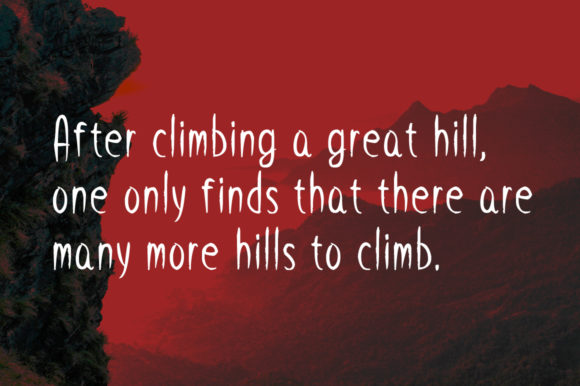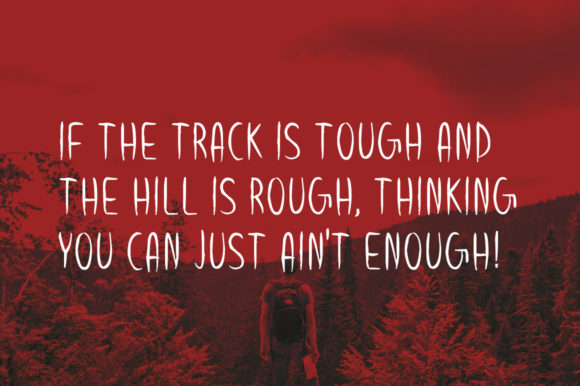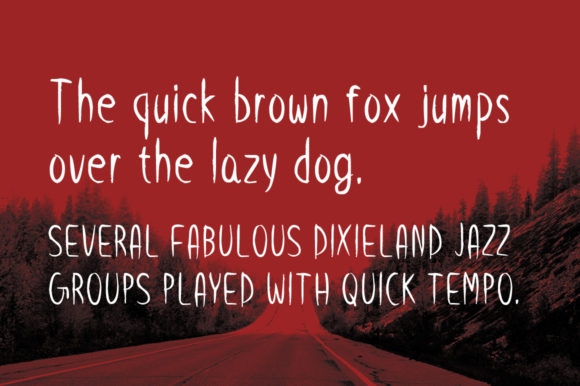
Valorous Hillock Font
About Valorous Hillock Font
The Valorous Hillock is an amazing handwritten font. It has a great readability and will add an unique touch to every design.